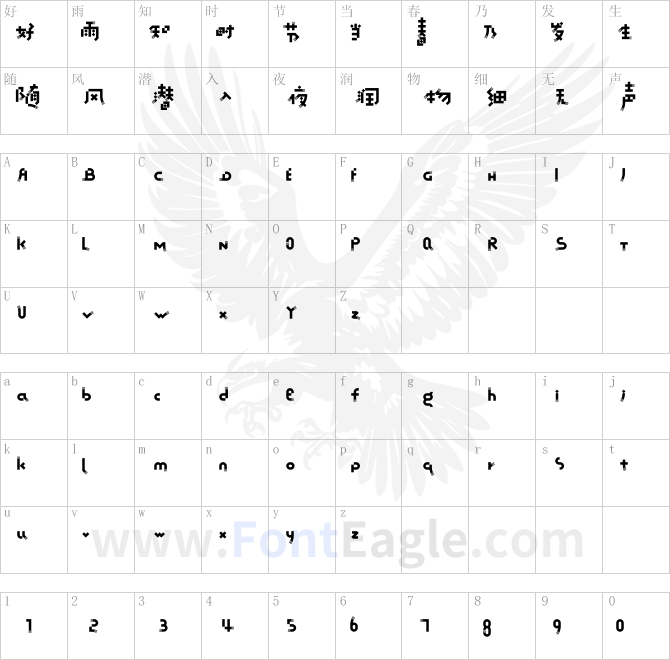
HYLiuZiHeiJ-Regular is a great font, widely used in graphic design, single-page menu design, poster design and other fields, and is deeply loved by designers.HYLiuZiHeiJ-Regular download.